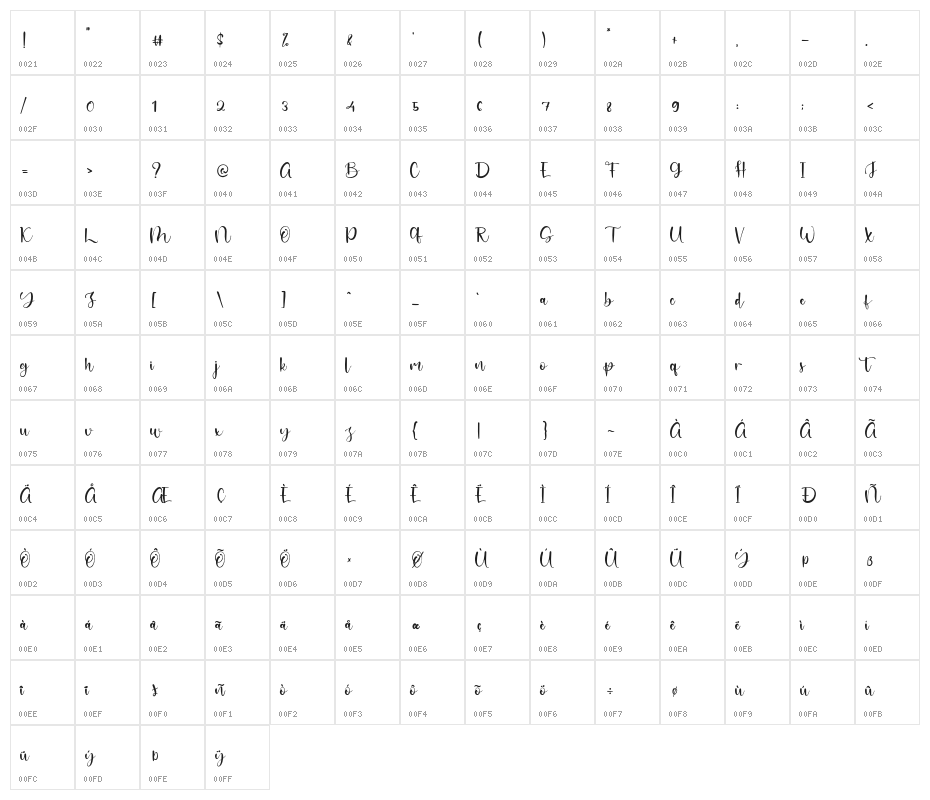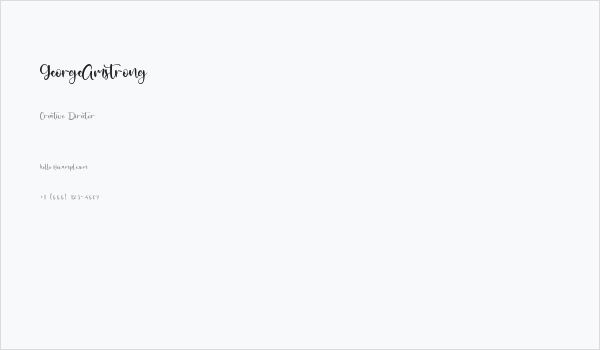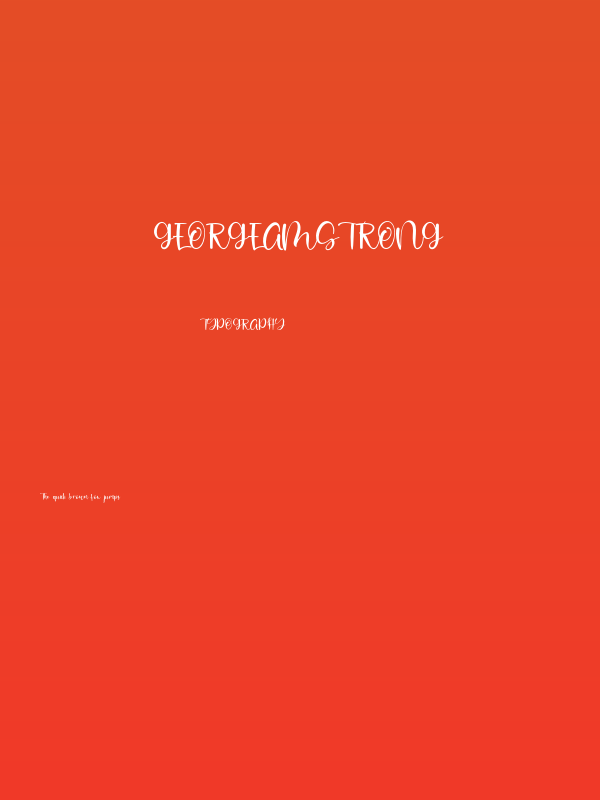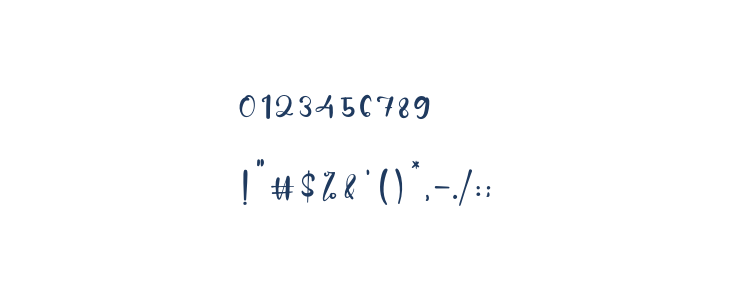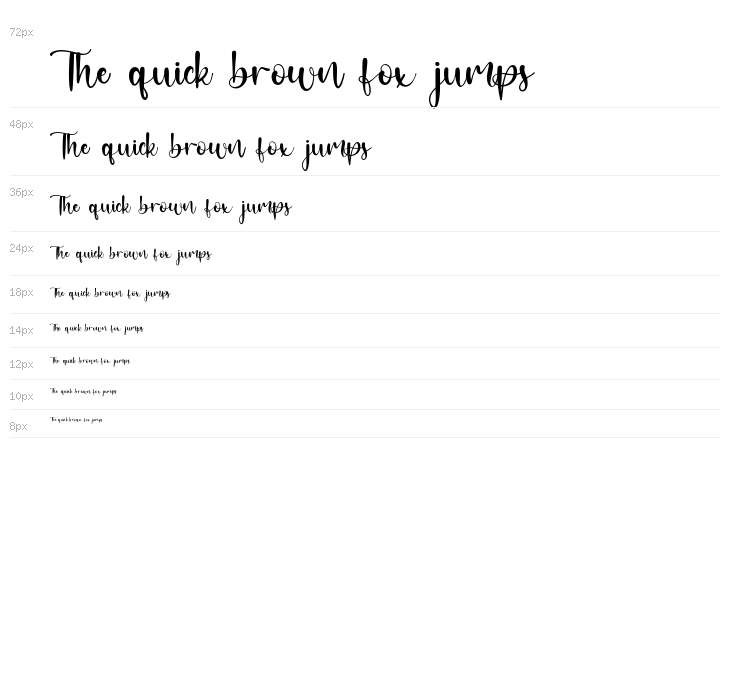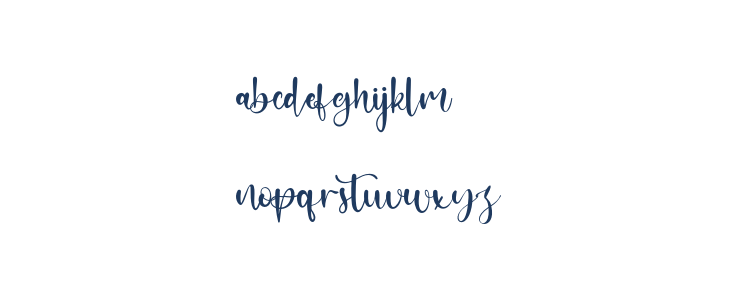
GeorgeAmstrong Font
GeorgeAmstrong Description
This font exhibits a charming and fluid script style, characterized by its elegant and flowing letterforms. The uppercase letters are bold and expressive, with a playful yet sophisticated flair. The lowercase letters maintain a consistent rhythm, offering a harmonious blend of curves and loops that enhance its handwritten appeal. The numerals are clear and distinct, complementing the overall aesthetic. Special characters are creatively designed, adding to the font's versatility. This font is perfect for projects that require a personal touch, such as invitations, greeting cards, or branding materials.